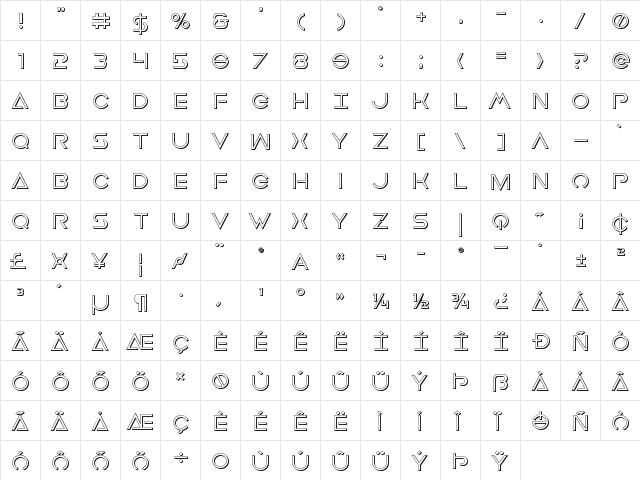
Earth Orbiter 3D Regular
Design Context for Earth Orbiter 3D Typeface
Earth Orbiter 3D offers clean, dependable letterforms without strong stylistic allegiance, making it a practical choice for designers who need flexibility.